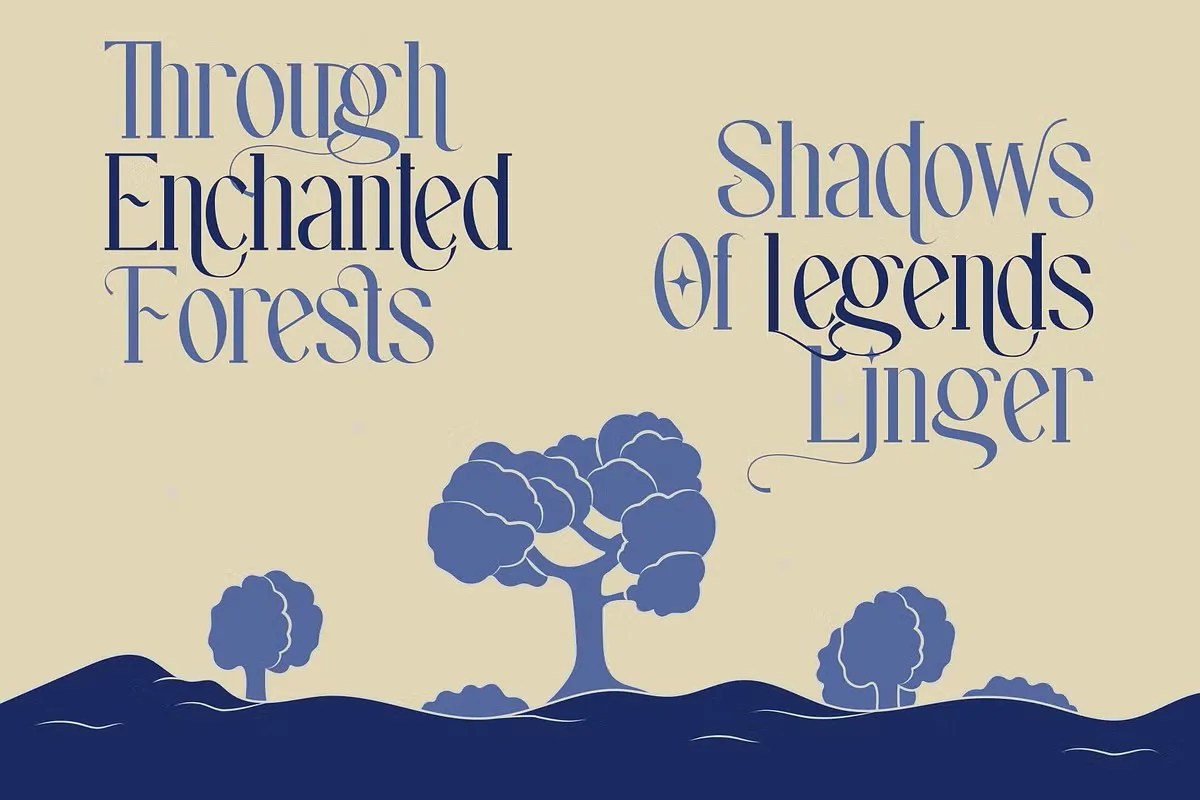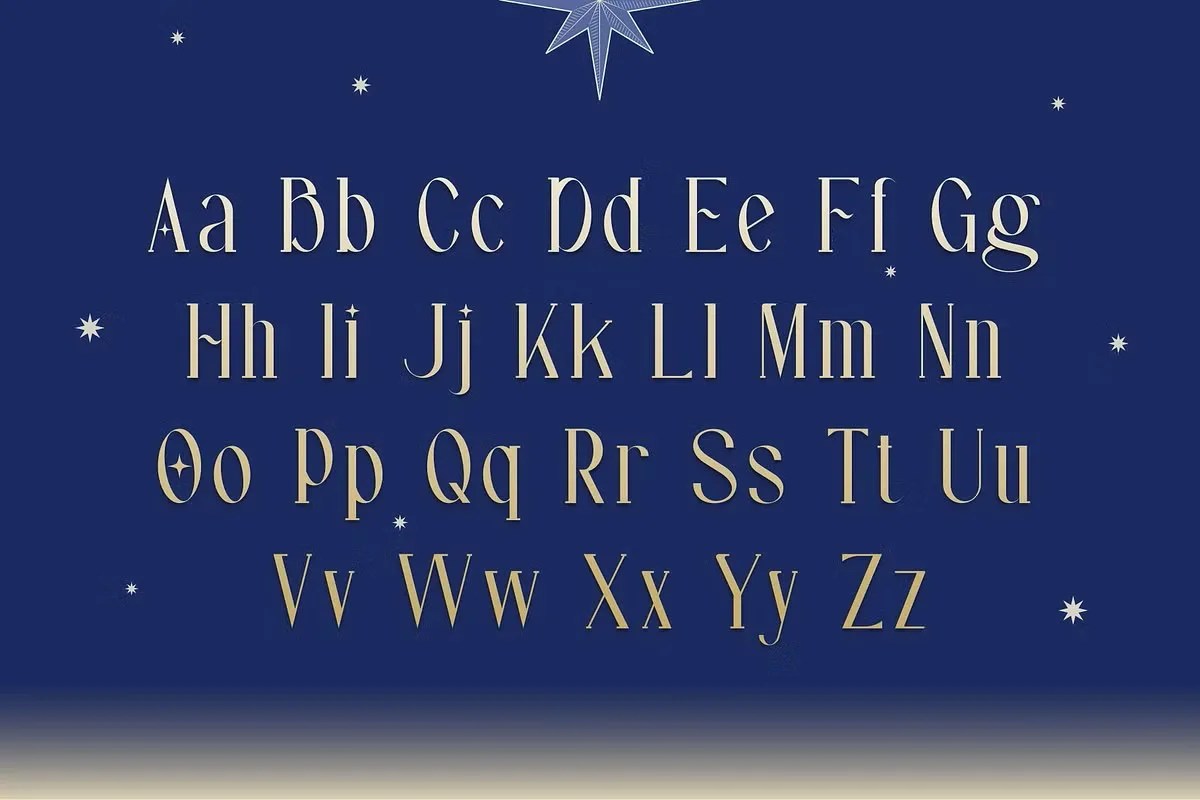
Starlight Rune Serif Font, masterfully crafted by Helotype, provides digital artists with a mesmerizing tool to express magical themes. Rather than relying on generic, uninspired text for your fantasy projects, you can completely transform your personal designs with a deep sense of enchantment and wonder. Consequently, this striking typeface grounds your digital artwork in a whimsical atmosphere, helping your audience connect viscerally with your creative lore. Ultimately, incorporating this enchanting typographic asset into your toolkit turns ordinary headers and subtitles into captivating visual spells.
Furthermore, achieving aesthetic brilliance remains a primary objective when you design immersive personal projects. This specific font delivers extraordinary visual balance by featuring sharp, rune-inspired serifs, graceful curves, and dramatic letterform weights. When you type these beautifully sculpted characters onto your digital canvas, the typeface naturally highlights your most critical fantasy titles and creates an unmistakable visual hierarchy. As a result, readers can easily navigate your personalized tabletop RPG materials, magical book covers, and mystical social media graphics with absolute awe. Whether you design a spellbinding party invitation, a whimsical poster, or elegant streaming overlays, this asset ensures your typography radiates authentic arcane energy.
- Exquisitely crafted letterforms featuring sharp, magical rune-inspired serifs.
- Ideal for tabletop RPG campaigns, stylish book covers, and mystical posters.
- Crisp, high-fidelity rendering ensuring smooth scaling without any quality loss.
- Excellent readability for both striking headline titles and atmospheric short paragraphs.
- Brings a whimsical, enchanting, and magical atmosphere to any digital canvas.